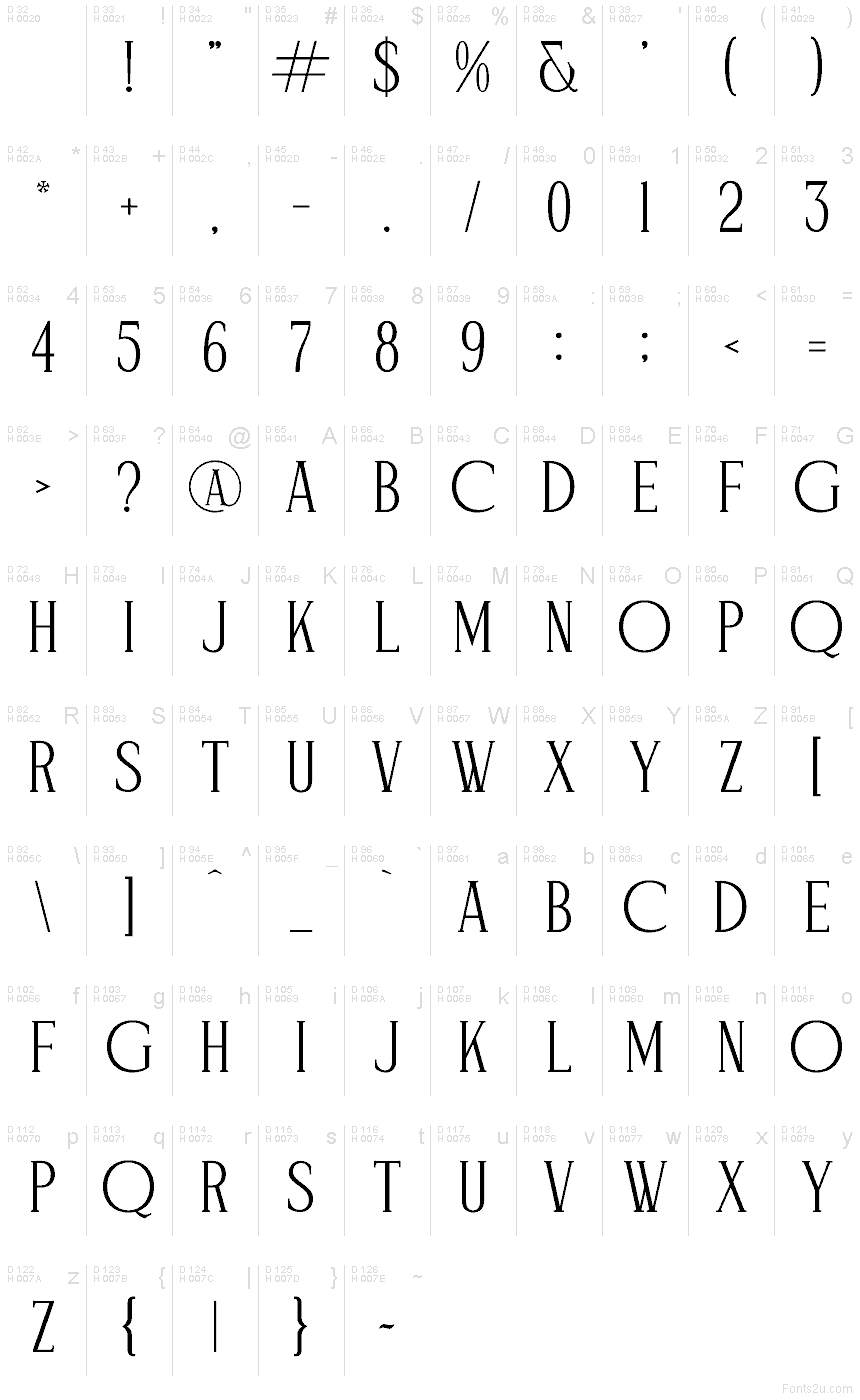
Figurlce
Figurlce font is a stylish light, condensed serif curated by Storytype Studio. Its sleek and elegant feel steals attention easily within designs. It communicates sophistication with its refined serifs and classic feel, making the typeface even more charming. Its beautiful narrow and tall letter shapes aim to impress viewers in stand-alone fonts as much as when combined with other fonts.